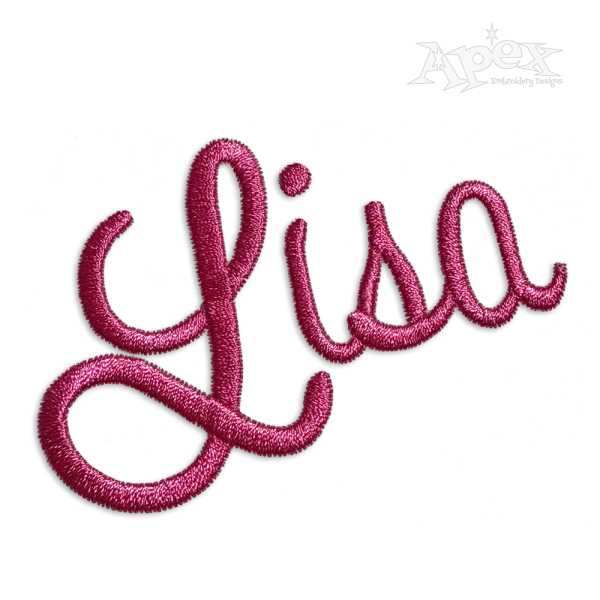
Kelsey Script Embroidery Font
Create fancy names with this Kelsey Script font set. Clean readable script embroidery set is perfect for customizing hats, linens, towels, baby gifts, tote bags, and more. Included All Letters A-Z Upper and Lowercase.
Florida Gators Script embroidery font collection includes complete size sets with cursive script letters designed for creating stunning personalized names. Each font comes professionally digitized for smooth stitching and excellent embroidery results.